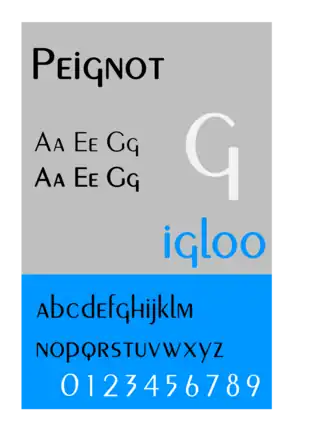
Peignot (typeface)
Category | Unicase stressed sans-serif |
Designer(s) | A. M. Cassandre[1] |
Foundry | Deberny & Peignot[1] |
Date created | 1937 |
Peignot is a sans-serif display typeface, designed by the poster artist A. M. Cassandre in 1937.[1] It was commissioned by the French type foundry Deberny & Peignot.[2]
The typeface is notable for not having a traditional lowercase, but in its place a "multi-case" combining traditional lowercase and small capital characters.[2] Cassandre intended for Peignot to be used in publishing and stated that "[t]here is no technical reason in printing why we cannot return to the noble classical shapes of the alphabet and discard the lower case forms."[1]
The typeface achieved some popularity in poster and advertising publishing from its release through the late 1940s. Stylistically Peignot is a "stressed" or modulated sans-serif in the Art Deco style, in which the vertical strokes are clearly wider than the horizontals. Use of Peignot declined with the growth of the International Typographic Style, which favored less decorative, more objective, traditional typefaces such as Akzidenz-Grotesk.
As of 2023, Production Type holds the rights to Peignot and has digitized the font.[3]
A very similar typeface, Chambord by Roger Excoffon, was released by the Fonderie Olive in Marseille in 1945; it had a traditional lowercase.[2] A font resembling Peignot was used for the Intellivision video game system. Derek Vogelpohl distributes a digital version of that font as freeware under the name SF Intellivised.